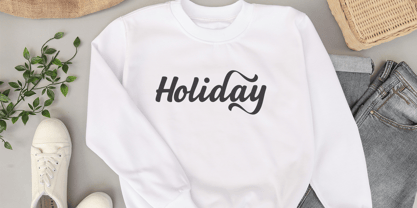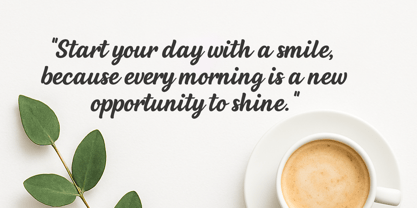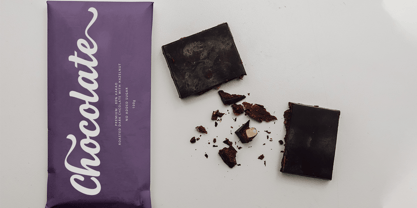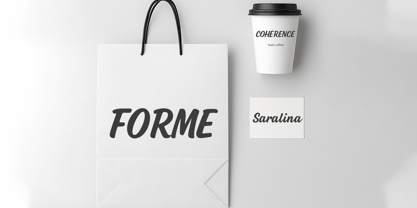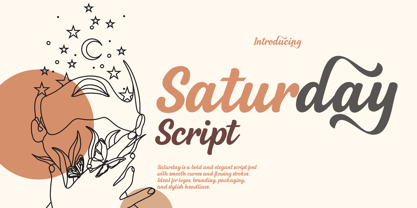
Saturday script
by Cocodesign
The Saturday script Font Family was designed by Muhammad Zaini and published by Cocodesign. Saturday script contains 1 styles. More about this family
Saturday Script is a bold and elegant script font featuring smooth curves and flowing lines. Perfect for logos, branding, packaging, and stylish headlines that need a touch of flair and personality.
Designers: Muhammad Zaini
Foundry: Cocodesign